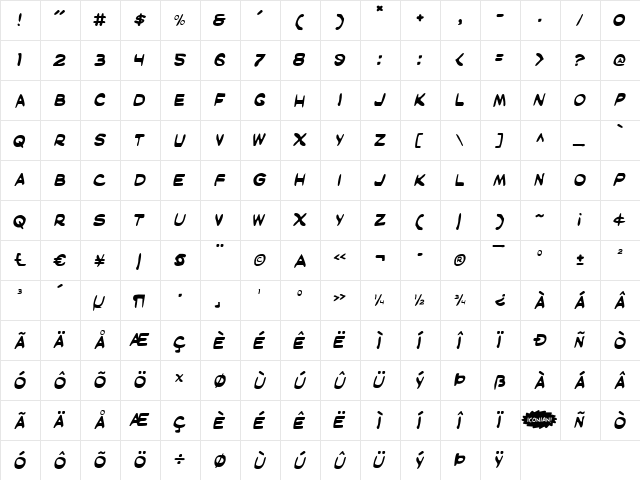
Masked Marvel Regular
Design Context for Masked Marvel Typeface
Masked Marvel takes a measured approach to typography — its balanced proportions and neutral character make it a reliable workhorse for both digital and print work.
Pro Tip: Use Masked Marvel in both headline and body roles to test its range before committing to a single application.